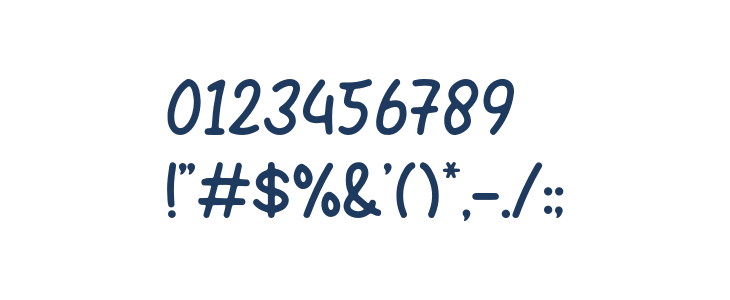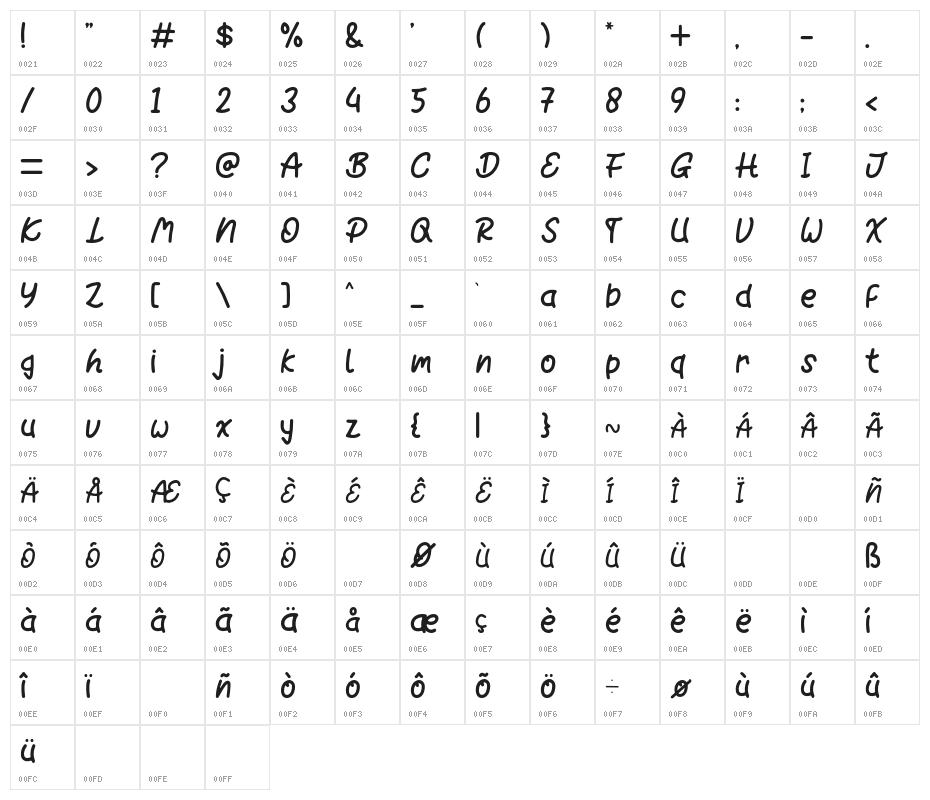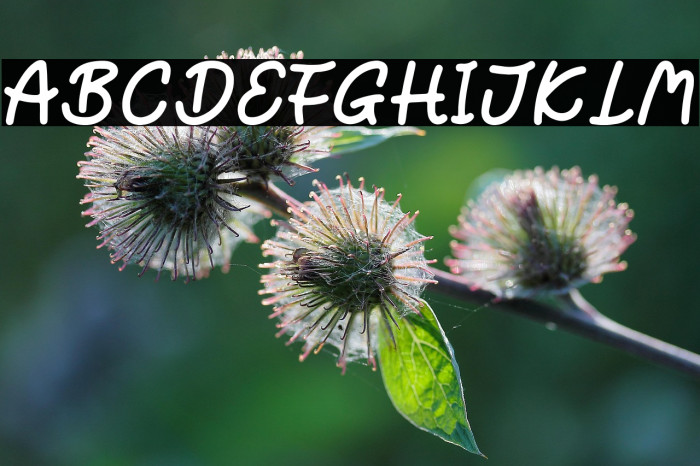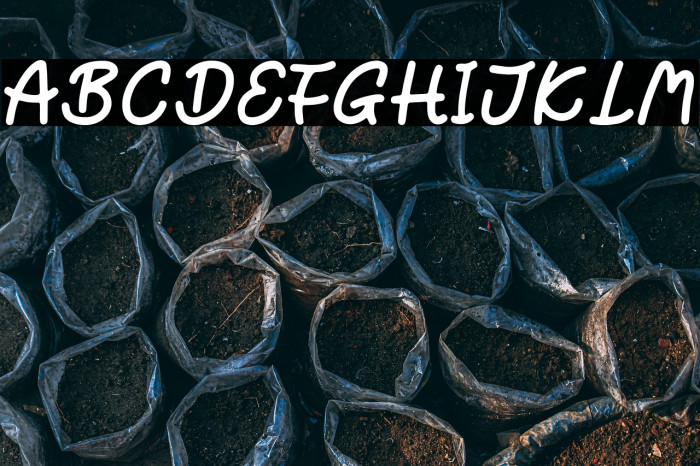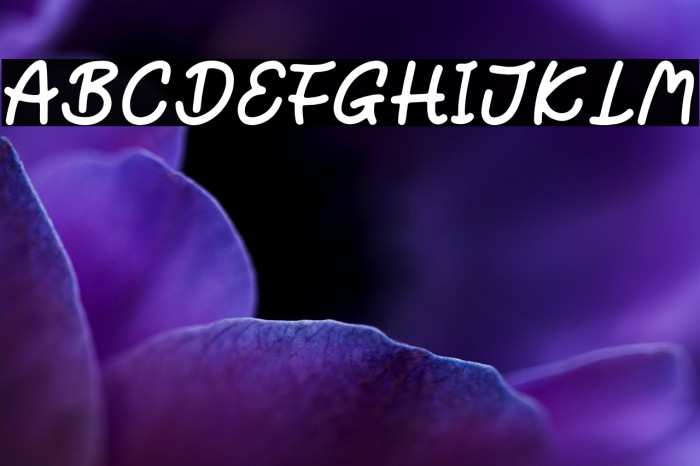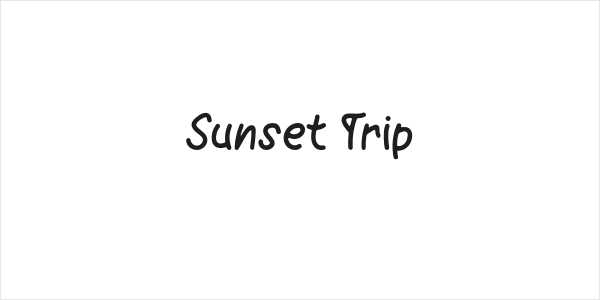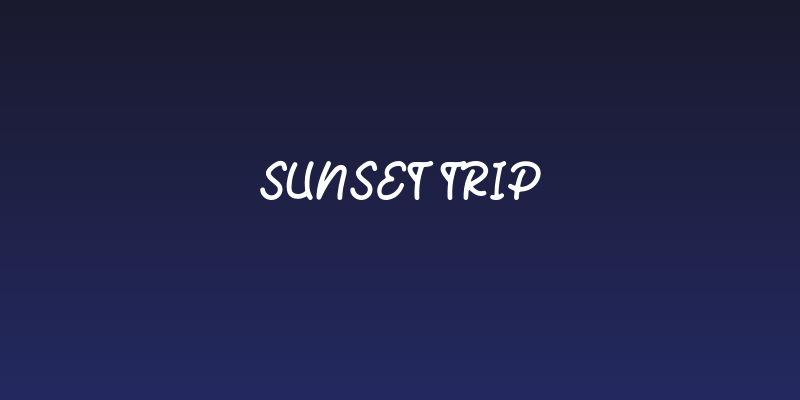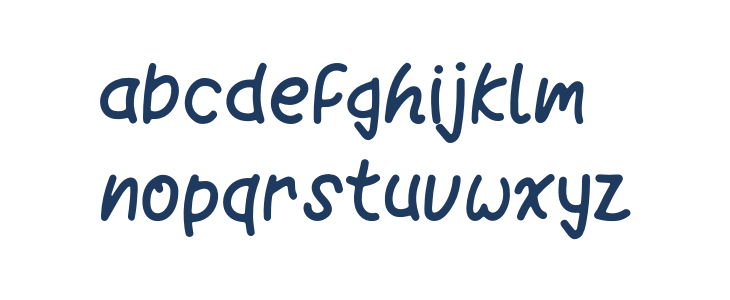
Sunset Trip Font
Sunset Trip Description
This playful and energetic font features a handwritten style with a casual, flowing appearance. The letters are slightly slanted, giving a sense of movement and dynamism. The strokes are smooth and rounded, creating a friendly and approachable feel. The uppercase and lowercase letters maintain a consistent style, with a slight variation in size and shape that adds to the informal charm. Numbers and special characters are designed to match the overall aesthetic, ensuring a cohesive look across all text elements. This font is perfect for projects that require a personal touch or a fun, relaxed vibe.
| Proposed Projects | Ideal for greeting cards, invitations, children's books, and playful branding projects. |